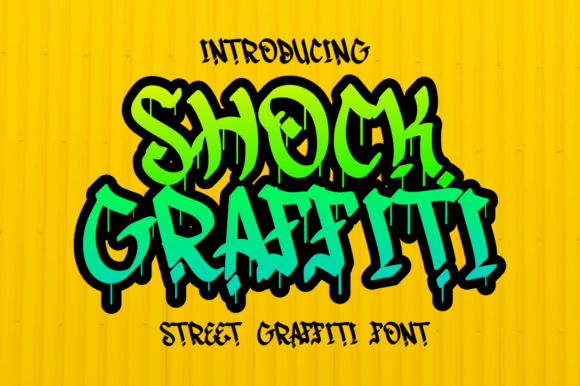
Shock Graffiti: Adding Bold Urban Edge to Modern Design
Imagine a typeface that captures the raw energy of street art while maintaining the clarity needed for professional projects. This is the creative promise of Shock Graffiti, a distinctive display font designed to infuse designs with an immediate urban character. It moves beyond simple text to become a visual statement, perfect for projects that demand a strong, contemporary presence.
What Defines the Shock Graffiti Typeface?
Shock Graffiti is a premium display font characterized by its bold, stylized letterforms. It draws inspiration from the dynamic flow of graffiti and street typography, resulting in a typeface that feels both edgy and intentional. Unlike script or handwritten fonts that aim for a personal touch, or clean sans serif fonts for body text, Shock Graffiti is built for impact. Its primary role is to act as a powerful visual anchor in headlines, logos, and branding elements where personality is paramount.
Creative Applications for Urban and Street-Themed Projects
The true strength of this font shines in contexts that celebrate urban culture and bold expression. It is exceptionally well-suited for designs that need to communicate energy, authenticity, and a modern edge. Consider using Shock Graffiti for:
- Poster Design and Event Flyers: Create captivating headlines for music festivals, gallery openings, or streetwear launches that demand attention.
- Merchandise and Apparel: Design impactful graphics for T-shirts, hoodies, and hats that resonate with a streetwear audience.
- Brand Identity for Niche Markets: Develop logos and visual systems for brands in skateboarding, urban sports, or independent music that seek an authentic voice.
- Social Media Graphics: Craft scroll-stopping posts and stories with a bold typographic element that stands out in a crowded feed.
- Digital Products and Packaging: Add a unique flair to packaging for niche consumer goods or digital assets like gaming overlays and YouTube thumbnails.
Integrating This Display Font into Your Design Workflow
Using a powerful display font like Shock Graffiti effectively requires thoughtful application. Its bold nature means it works best in limited, high-impact roles. Avoid setting long paragraphs of body copy with it; instead, reserve it for headlines, subheadings, or single-word accents. For a polished professional look, pair it with a highly legible sans serif or serif font for accompanying text. This creates a clear visual hierarchy, allowing the urban energy of Shock Graffiti to shine without compromising overall readability.
Font Pairing and Visual Balance
A successful font pairing balances personality with function. Try combining Shock Graffiti with a neutral, geometric sans serif for a modern, clean contrast. Alternatively, pairing it with a simple serif font can create an interesting tension between street art and classic editorial style. The key is to let the display font dominate the hierarchy while the secondary typeface ensures the content remains accessible and easy to read.
Typography is a fundamental pillar of design that shapes how an audience perceives a brand or message. Choosing a well-crafted typeface like Shock Graffiti is about more than just aesthetics; it's about selecting a tool that communicates a specific vibe with precision and impact. For designers aiming to bring a bold, urban sensibility to their work, it offers a focused and visually compelling solution. The right font doesn't just display words—it helps tell the story.